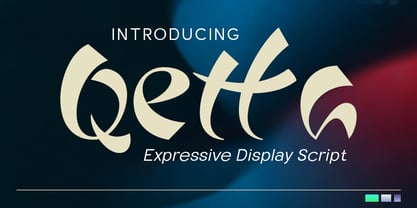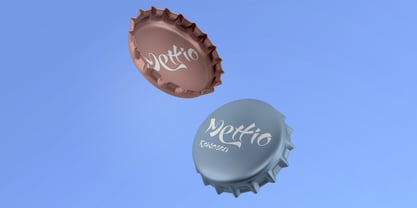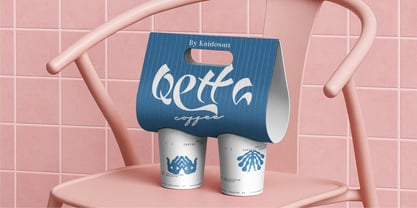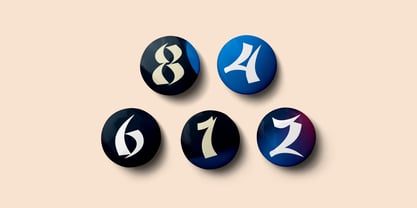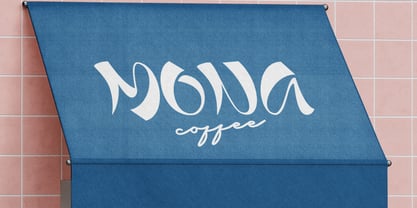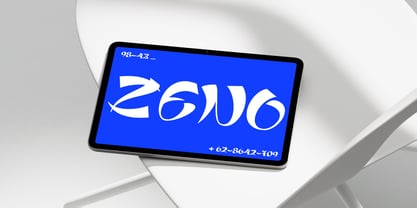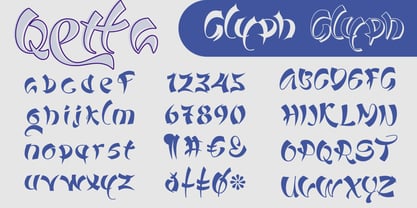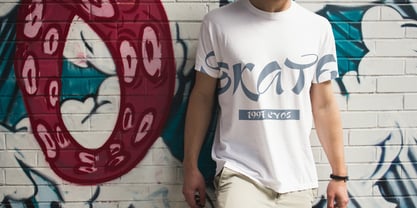
Qetta
The Qetta Font Family was designed by Muhammad Ansari and published by Kaidosan. Qetta contains 6 styles and family package options. More about this family
Qetta is an Expressive Display Script with a unique, expressive, and personality-packed character. Combining touches of modern calligraphy and a contemporary fantasy feel, Qetta delivers dynamic, sharp, and elegant letterforms. Designed to be bold and distinctive, Qetta is more than just a font—it's a powerful and sophisticated visual identity. Visual Character Artistic & Decorative Modern fantasy style Elegant yet powerful Attention-grabbing for titles & branding Suitable for premium logos, fantasy book covers, event posters, exclusive packaging, merchandise, social media, and even game titles. 6 Styles Included Regular – Solid & bold for main titles Outline – Clean & modern, perfect for layering Shadow – Dramatic with visual depth Distortion – Bold & experimental Inline – Luxurious and classic-modern details Decorative – Ornamental & more fantasy